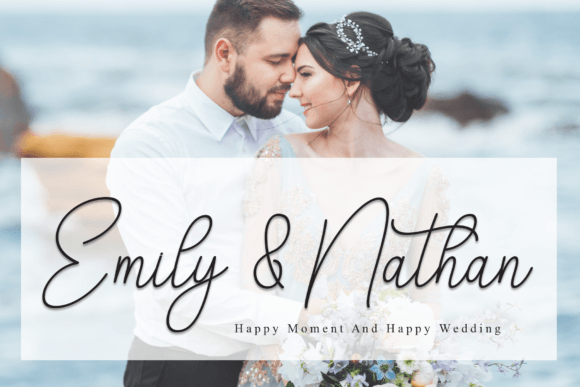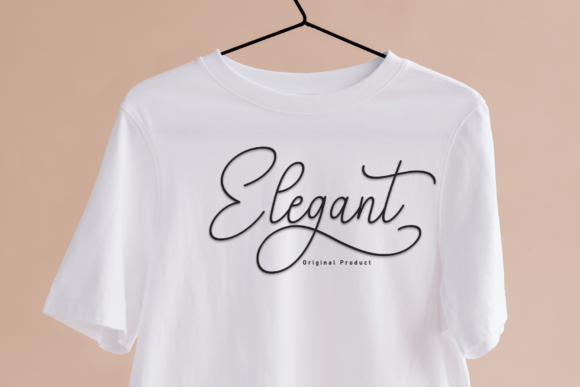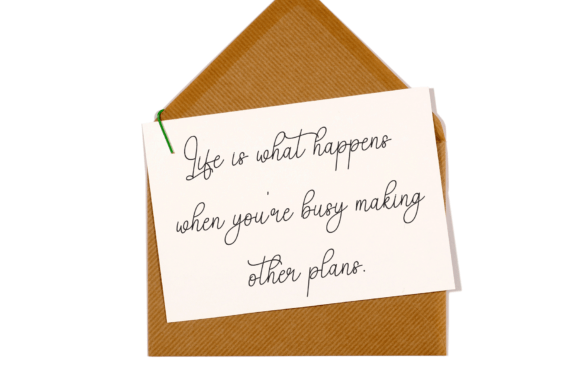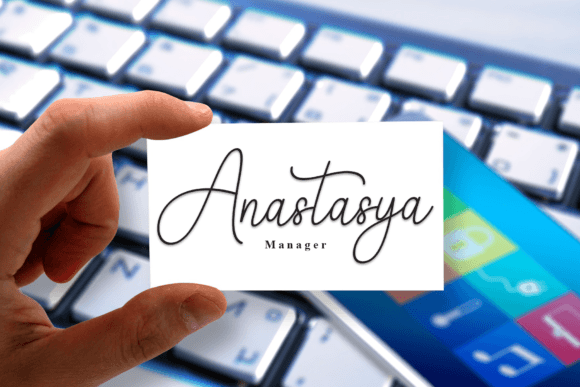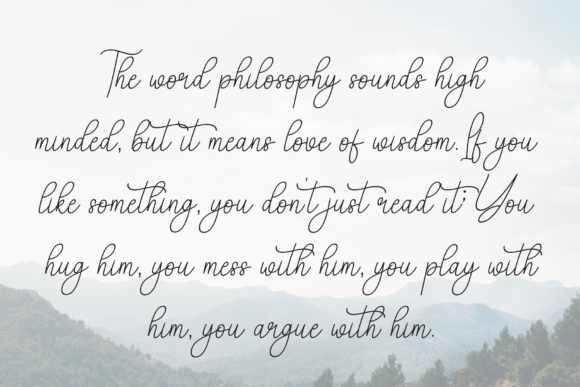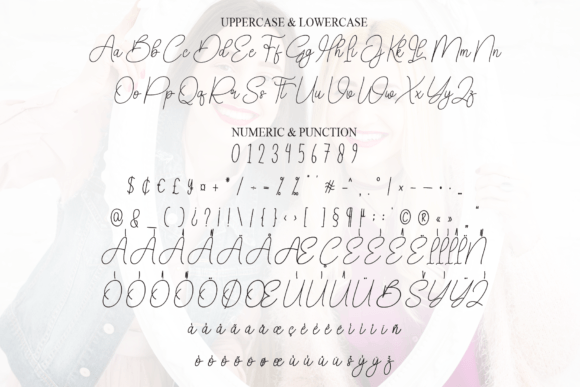
Introducing Bigsister Font: Elevate Your Designs with Elegance and Charm
In the world of typography, a well-crafted font can make all the difference in transforming a design from ordinary to extraordinary. For designers and crafters seeking to add a touch of sophistication and warmth to their projects, Bigsister Font is an exceptional choice. This stylish handwritten script font is designed to exude elegance and charm, making it perfect for a variety of creative applications.
The Unique Characteristics of Bigsister Font
Bigsister Font stands out with its fluid strokes and natural flow, which create a captivating and sophisticated look. The font’s handwritten script style gives it a personal and approachable feel, making it ideal for designs that require a touch of warmth and personality. Whether you’re working on invitations, branding materials, or social media graphics, Bigsister Font brings a sense of elegance and refinement that is sure to impress.
Key Features of Bigsister Font
- Fluid Strokes: The font’s fluid strokes give it a natural, handwritten feel that sets it apart from more rigid script fonts.
- Elegant and Charming: Bigsister Font exudes elegance and charm, making it perfect for designs that require a sophisticated look.
- Versatile: This font is suitable for a wide range of design applications, including invitations, branding, social media graphics, and more.
- Personal Touch: The handwritten script style of Bigsister Font adds a personal touch to any design, making it perfect for projects that require a unique and approachable feel.
Bigsister Font is an excellent choice for designers and crafters looking to elevate their projects with a stylish and sophisticated font. Its versatility and elegance make it suitable for a wide range of design applications, from formal invitations and branding materials to social media graphics and digital art. With Bigsister Font, you can add a touch of warmth and personality to your designs, making them stand out in a crowded digital landscape.
Tips for Using Bigsister Font
To get the most out of Bigsister Font, consider the following tips:
- Pair with Contrasting Fonts: Combine Bigsister Font with contrasting fonts to create visual interest and hierarchy in your designs.
- Experiment with Colors: Bigsister Font looks great in a variety of colors, so don’t be afraid to experiment and find the perfect hue for your design.
- Use for Headlines and Titles: The font’s elegant and charming style makes it perfect for headlines and titles, where it can add a touch of sophistication and refinement.
- Add Personal Touches: Use Bigsister Font to add personal touches to your designs, such as handwritten notes or signatures.
Bigsister Font is a stylish and sophisticated handwritten script font that is perfect for designers and crafters looking to add a touch of elegance and charm to their projects. With its fluid strokes, natural flow, and versatile style, this font is suitable for a wide range of design applications. Whether you’re working on invitations, branding materials, or social media graphics, Bigsister Font is an excellent choice for adding a personal touch and elevating your designs to the next level.